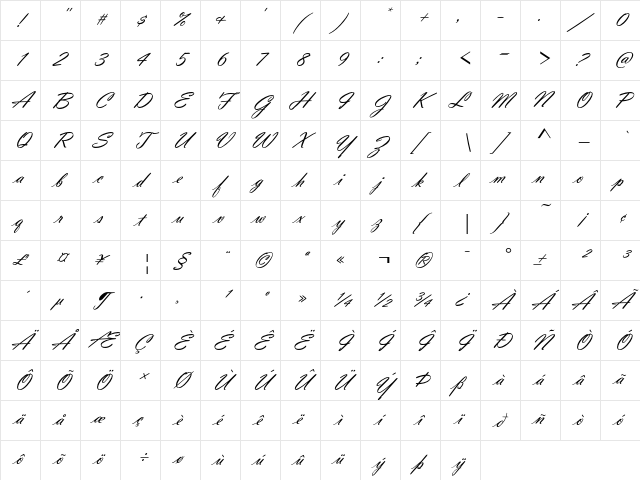
Vladimir Script LT Std Regular
Designer: Vladimir Andrevich
Design Context for Vladimir Script LT Std
Vladimir Script LT Std flows with the natural rhythm of handwritten lettering, making it ideal for designs that call for warmth and personal expression. Its slender proportions lend an understated elegance to any composition.
Font Pairing: Combine Vladimir Script LT Std with a simple geometric sans for maximum contrast - the tension between flowing curves and clean structure is a classic typographic pairing.
Pro Tip: Use Vladimir Script LT Std for short runs of text - names, titles, or taglines. Extended body copy in script faces tires the eye quickly.